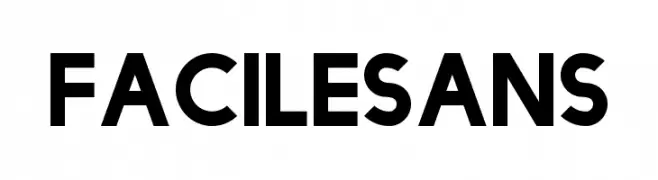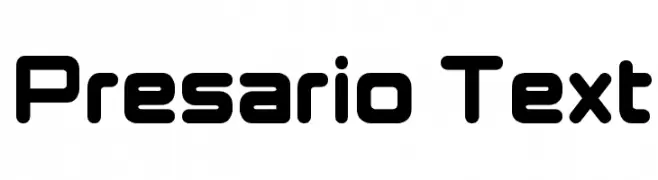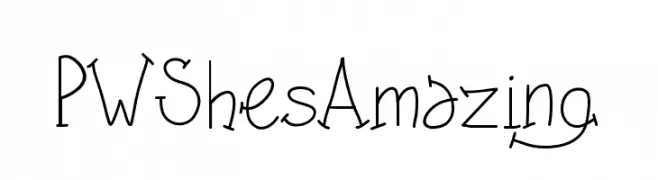
( Fonts by D D )
A whimsical, decorative font with loops and dots, offering a playful and artistic style.
( Fonts by Roland Huse - rolandhuse.com )
A bold, geometric font with a modern and industrial aesthetic.
( Fonts by Andrea Nicasio )
A bold, geometric font with a blocky, modern design.
A playful, handwritten font with a whimsical and informal style.
A clean, modern sans-serif font with medium contrast and balanced spacing.
A bold, outlined font with a playful, hand-drawn style.